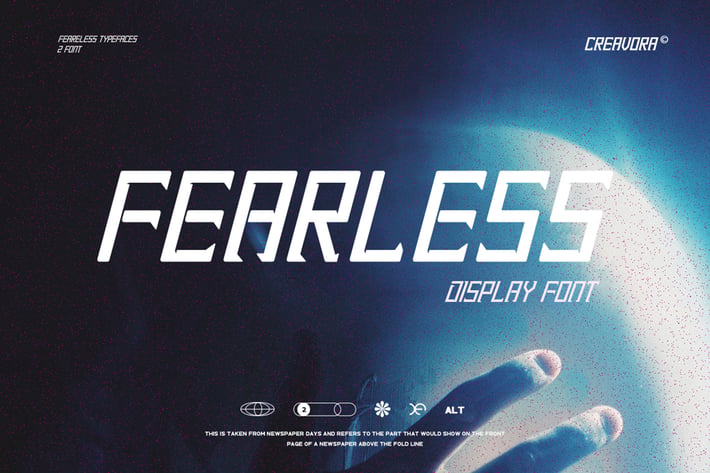
Fearless - Modern Display Font
Introducing Fearless - Modern Display Font
Take a closer look at Fearless Font. A blend of a modern touch, stylish, and futuristic. But make no mistake, this font gives you unlimited options for your project.